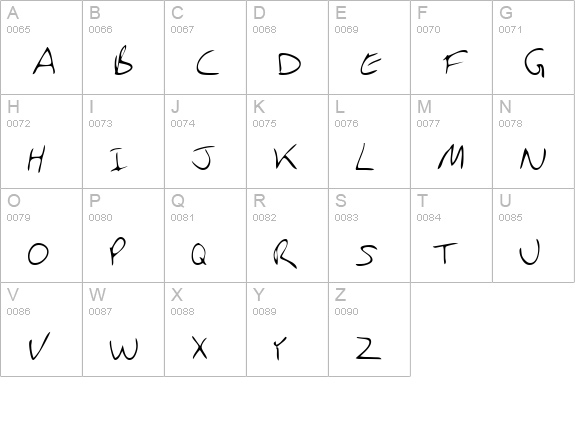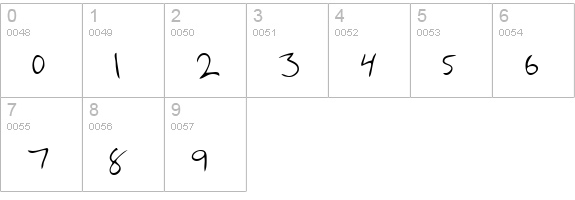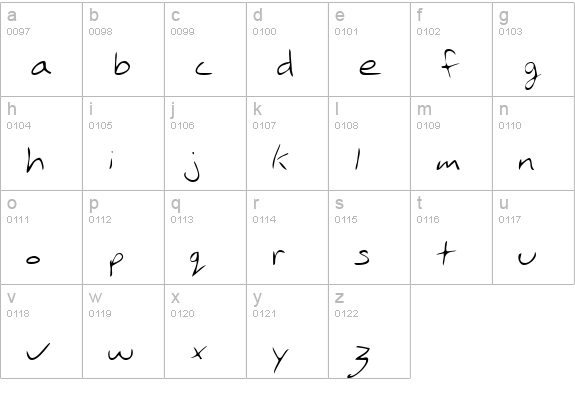
JodysHand Regular Font Details
JodysHand Regular is the standard, neutral variant in the JodysHand typeface family \xE2\x80\x94 well suited to general body text, paragraphs, and standard typographic work.
JodysHand Regular font is a charming and whimsical typeface that adds a touch of playfulness to any design project. With its handwritten style and unique character shapes, this font is perfect for creating eye-catching headlines, posters, and invitations. The smooth flowing lines and natural strokes give a warm and friendly feel to your text. Best of all, JodysHand Regular font is available for free download at FontsMarket.com. Whether you're a designer looking to add a personal touch to your projects or a hobbyist wanting to explore new fonts, this typeface is a great addition to your collection. So why wait? Download JodysHand Regular font today and let your creativity shine!